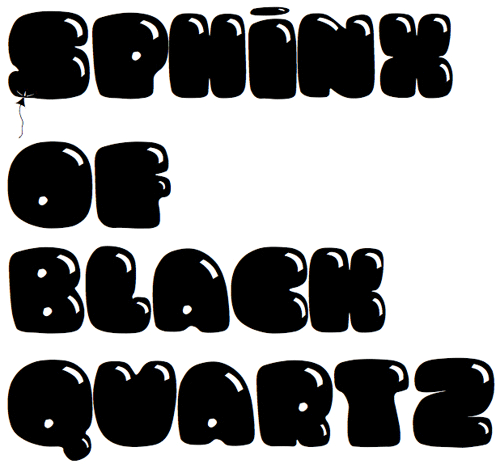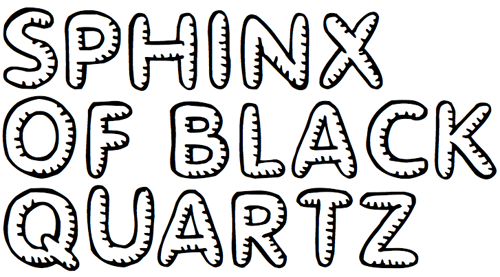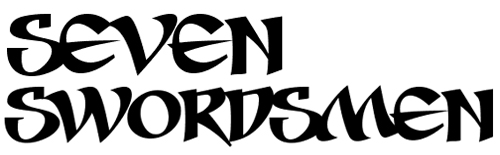
23 Eye-Catchy Cartoon And Comic Fonts For Free Download
Designers always look for various type of fonts for their designs and artworks. Being as a designer from a long time, sometimes I feel that traditional fonts are little boring for my designs and artworks. This is the time when I try to find out fonts that are stylish, extra creative and funkier to look at.
Cartoon and comic fonts solves that purpose if you too are bored with the traditional fonts. Cartoon fonts and comic fonts give that extra edge to your designs specially you are creating a memorable logo, icon or any artwork for fun-related items.
Here, in this article, I am collecting unique and eye-catching comic and cartoon fonts so that you don't have to waste your time finding ones. These fonts are very important for any designer to present their work in unique way so that it creates a cool appearance on visitors.
1. Smilage
13. Zupagargonizer T
2. Que FONTita!
3. Awesome Font
4. Seven Swordsmen
5. Oogie Boogie
6. Androgyne Medium
7. Clink Clank
8. Hildecaps
9. Denne’s Aliens
10. Cat Basah Kental
11. Glimstick
12. Fighting Spirit
13. Zupagargonizer T
14. Bumbazoid
15. akaHoggle
16. Boboblack
17. Baby Kruffy
18. Burrito
19. Space up Yer Life
20. Brown Bear Funk
21. Zeppelin
22. Letras Locas
23. Cactus Sandwich